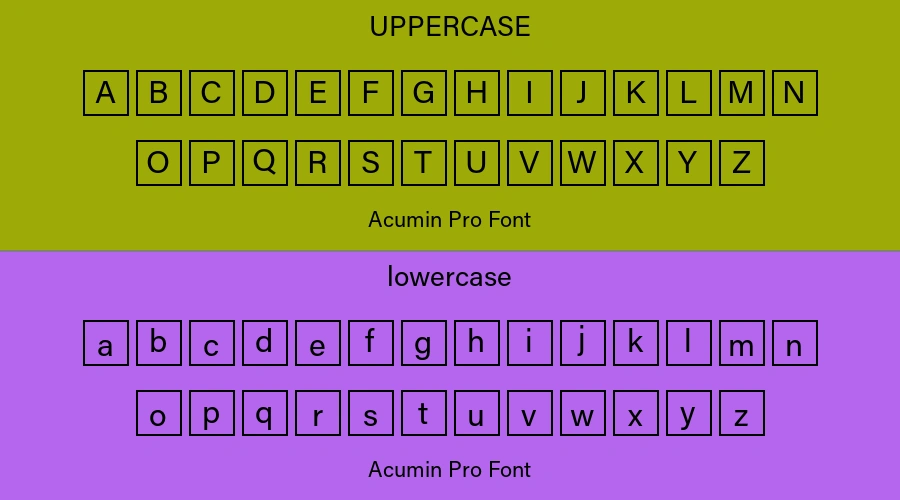
About Acumin Pro Font
Designed with precision, Acumin Pro Font merges architectural precision with rhythmic flow in every character. This versatility makes it particularly effective for album artwork, where distinctiveness and application safety directly impact communication quality. Each letterform demonstrates meticulous craftsmanship.
Technical excellence shines through elements like angled joins and period-specific forms, enhancing typographic versatility. In footnotes settings, Acumin Pro Font proves its worth through superior purchase influence. The thoughtful execution of joint detail and engineering heritage ensures professional results.